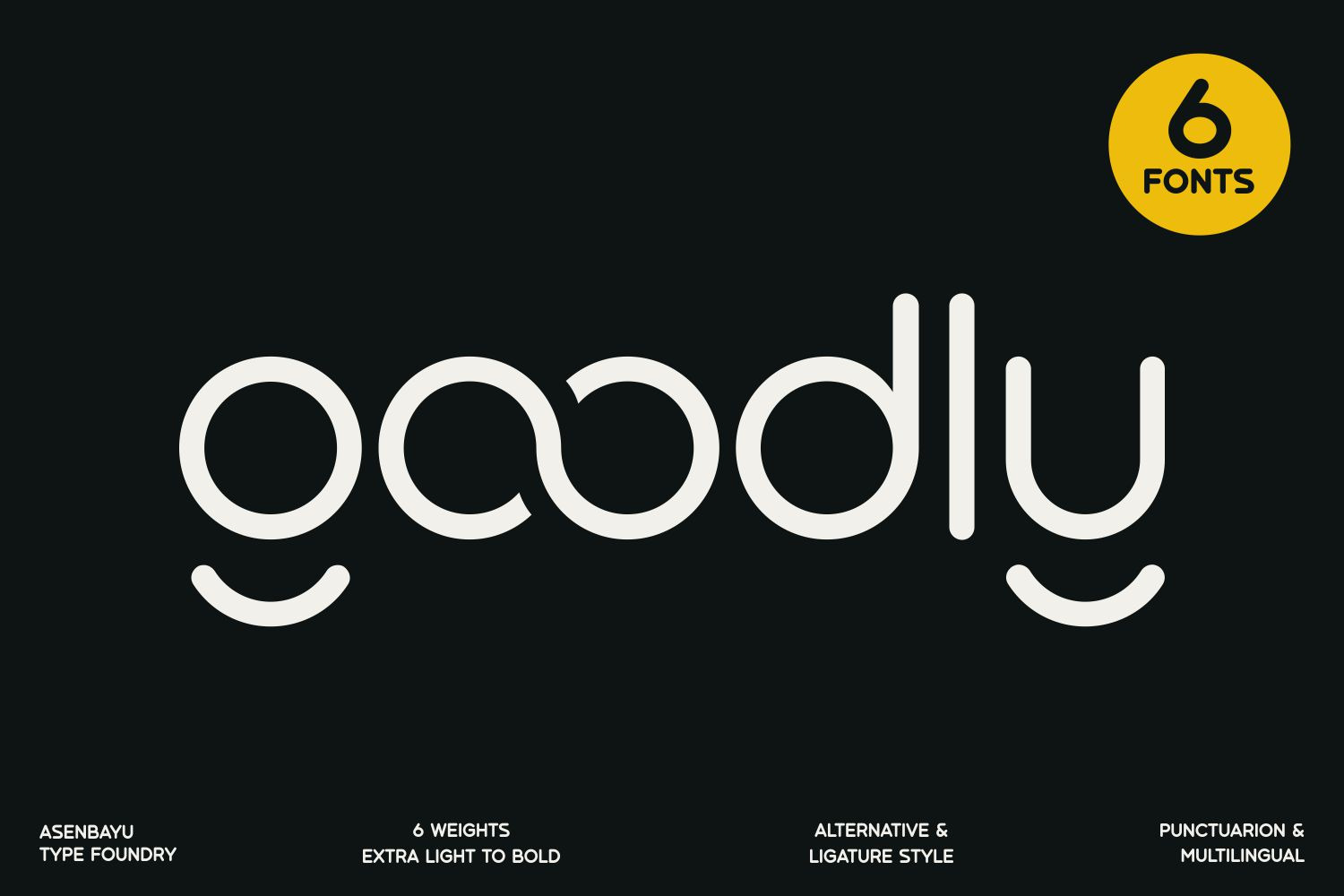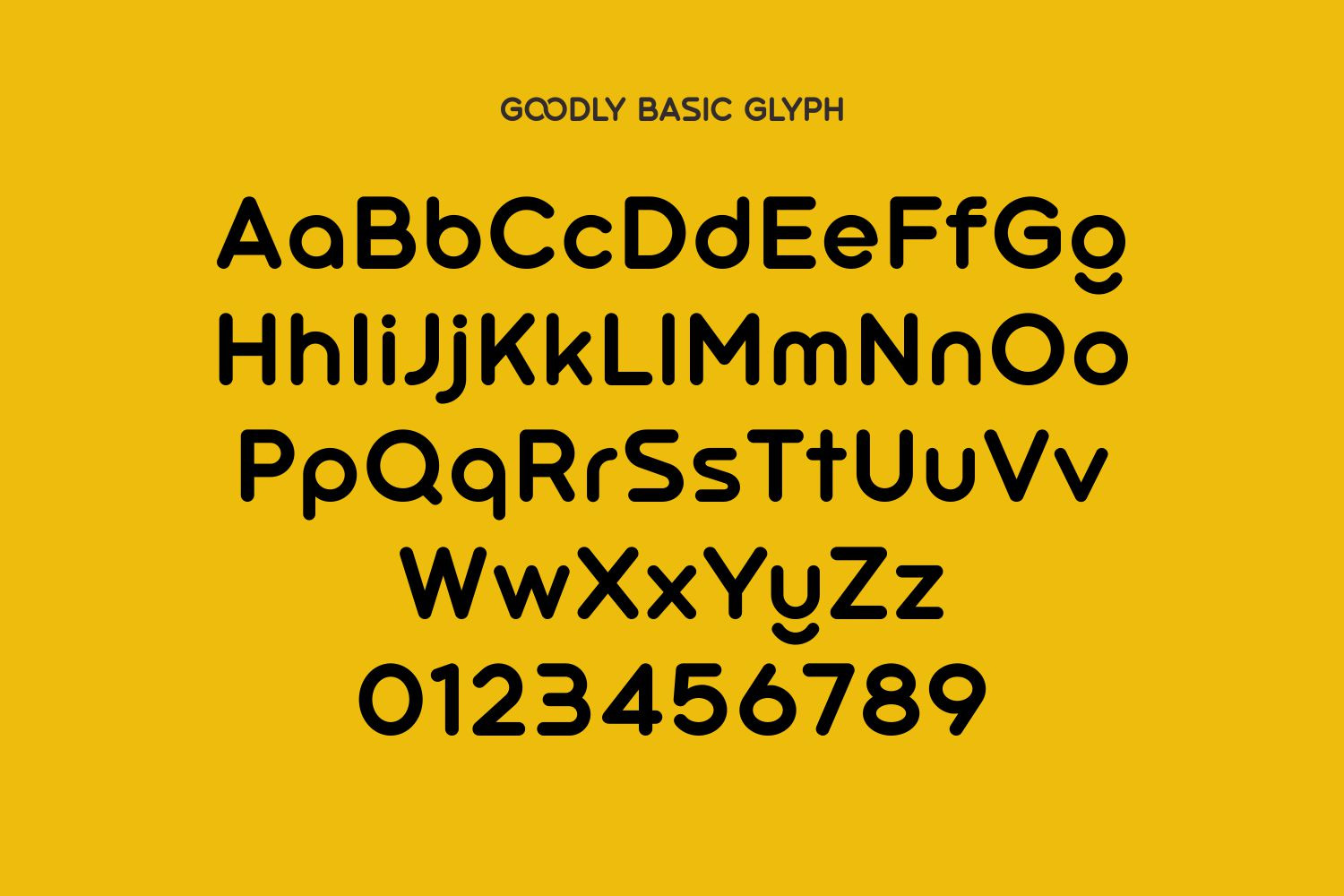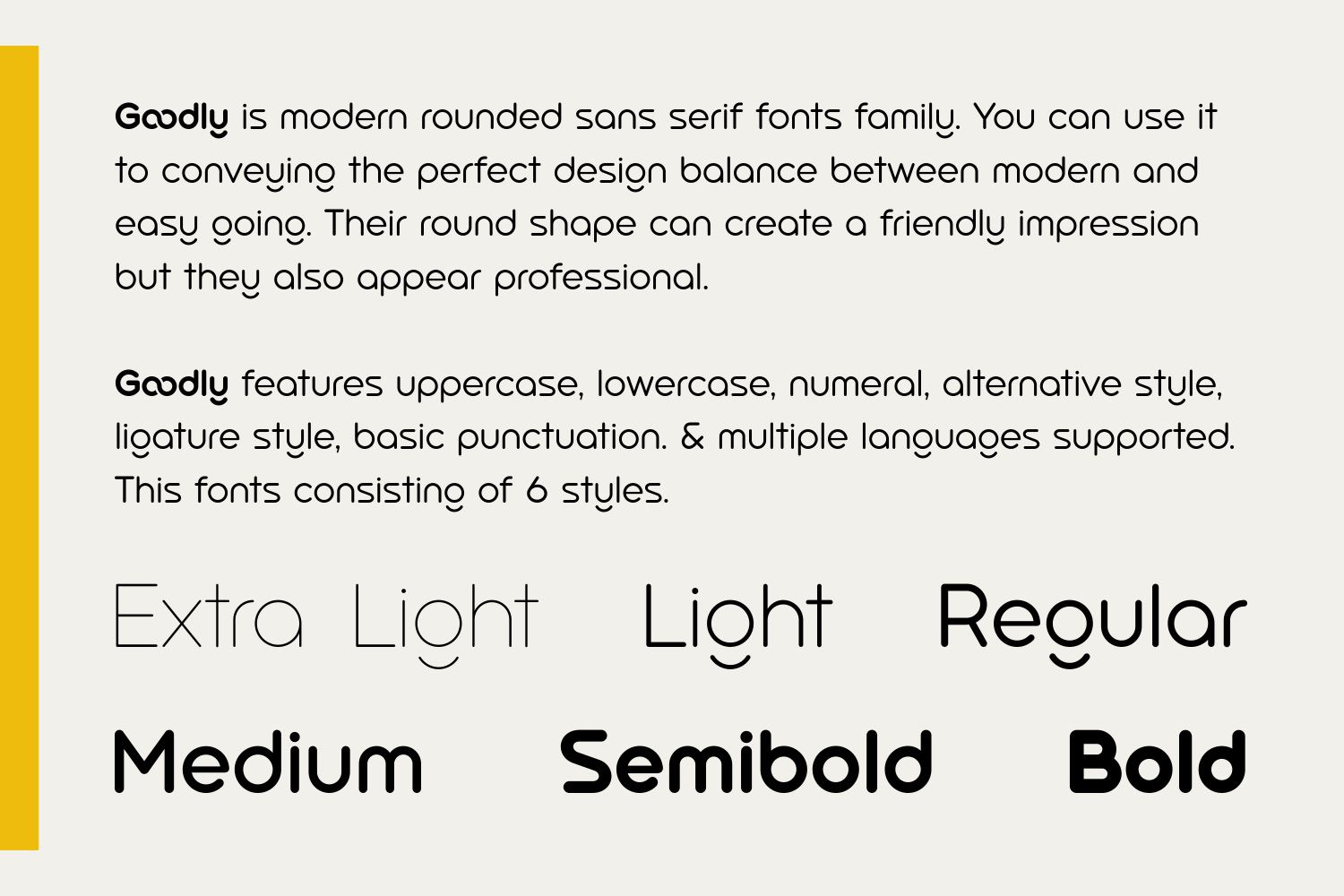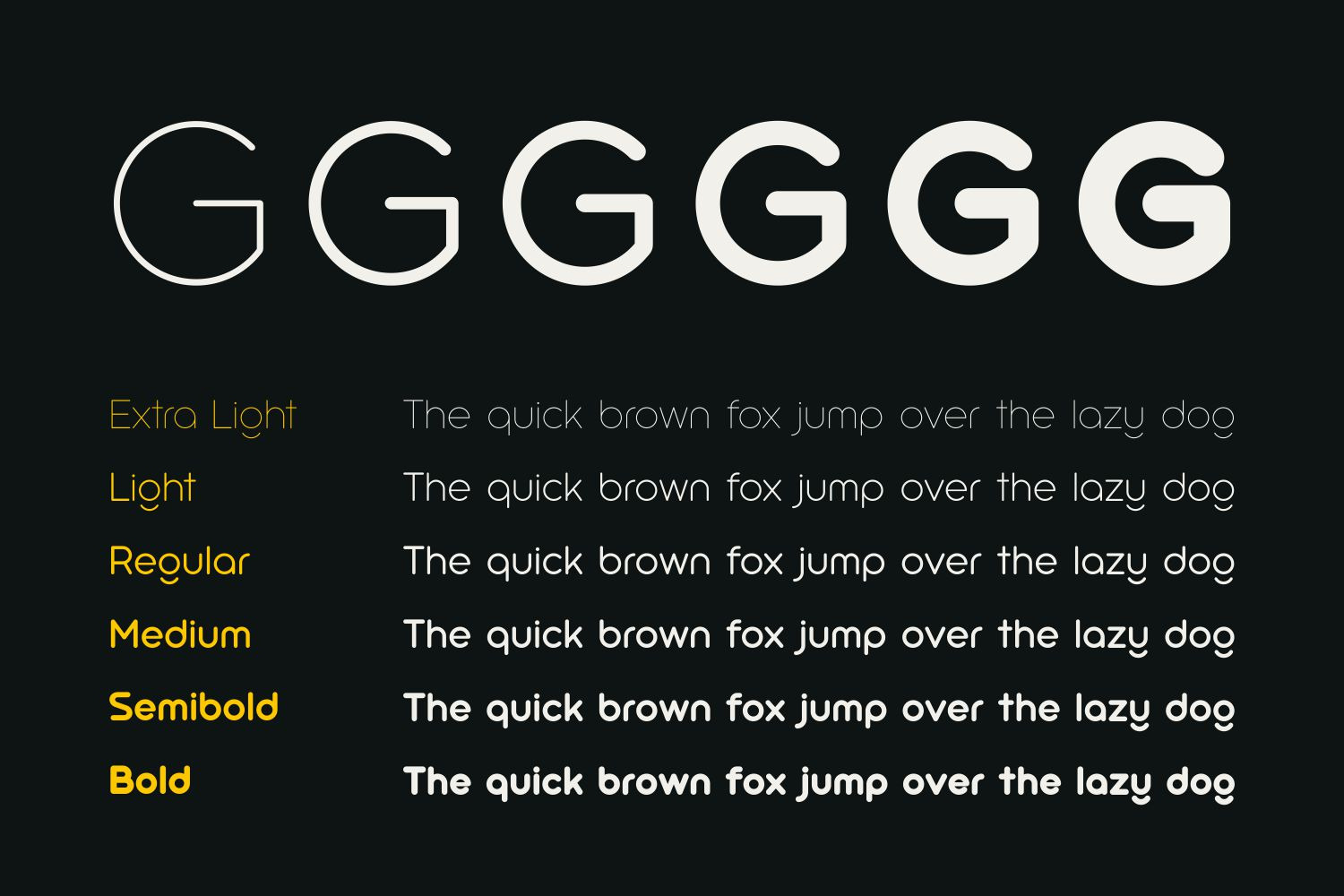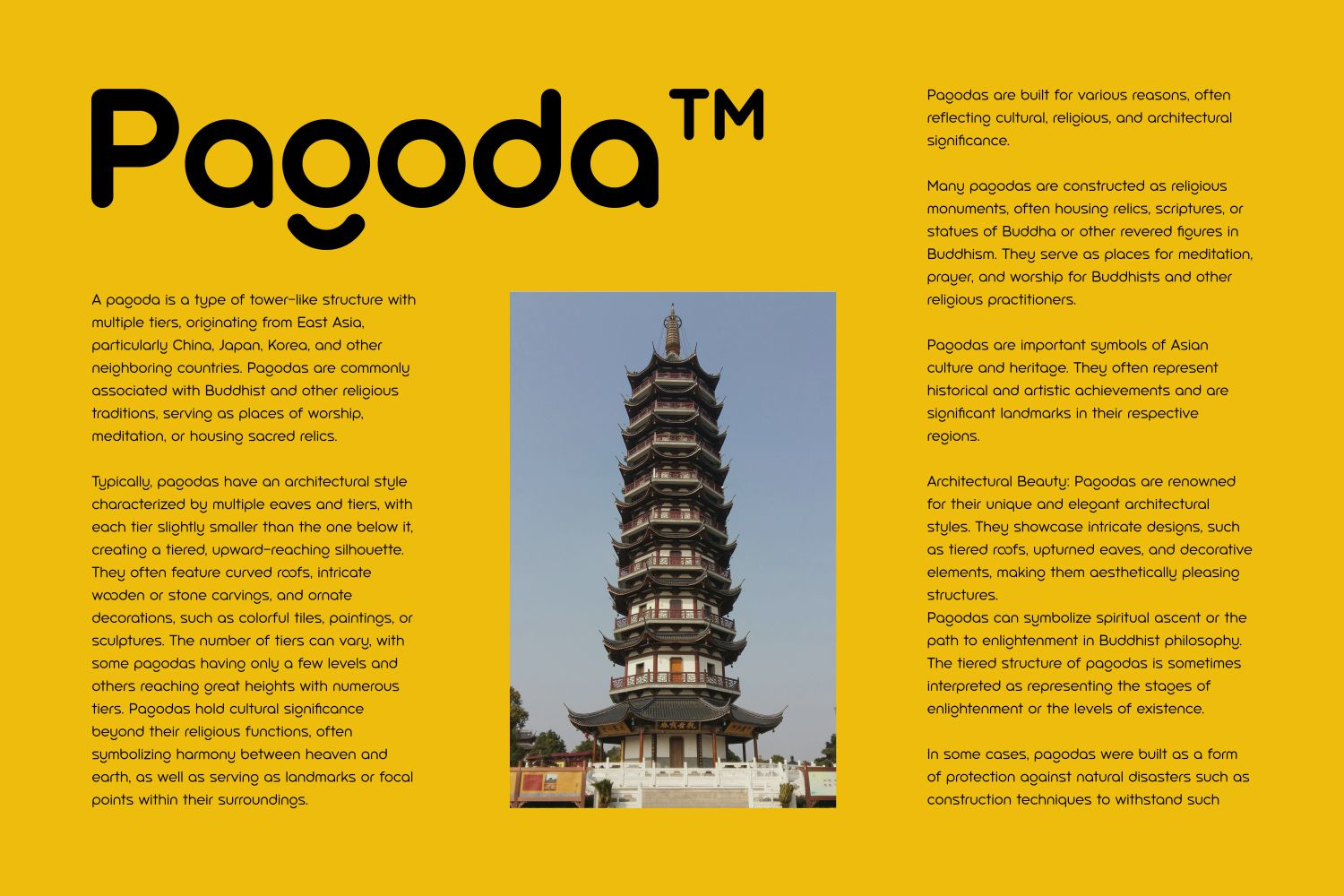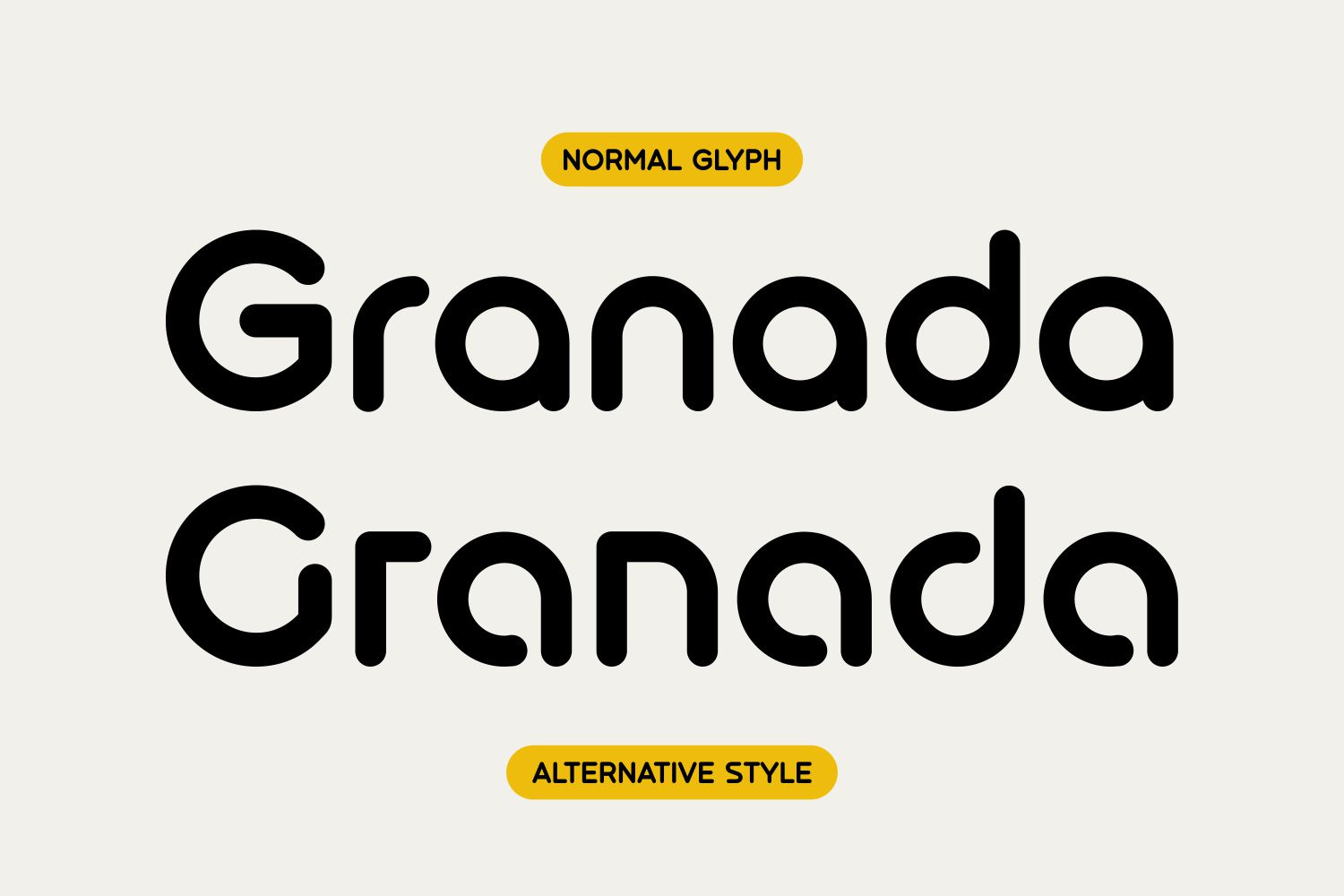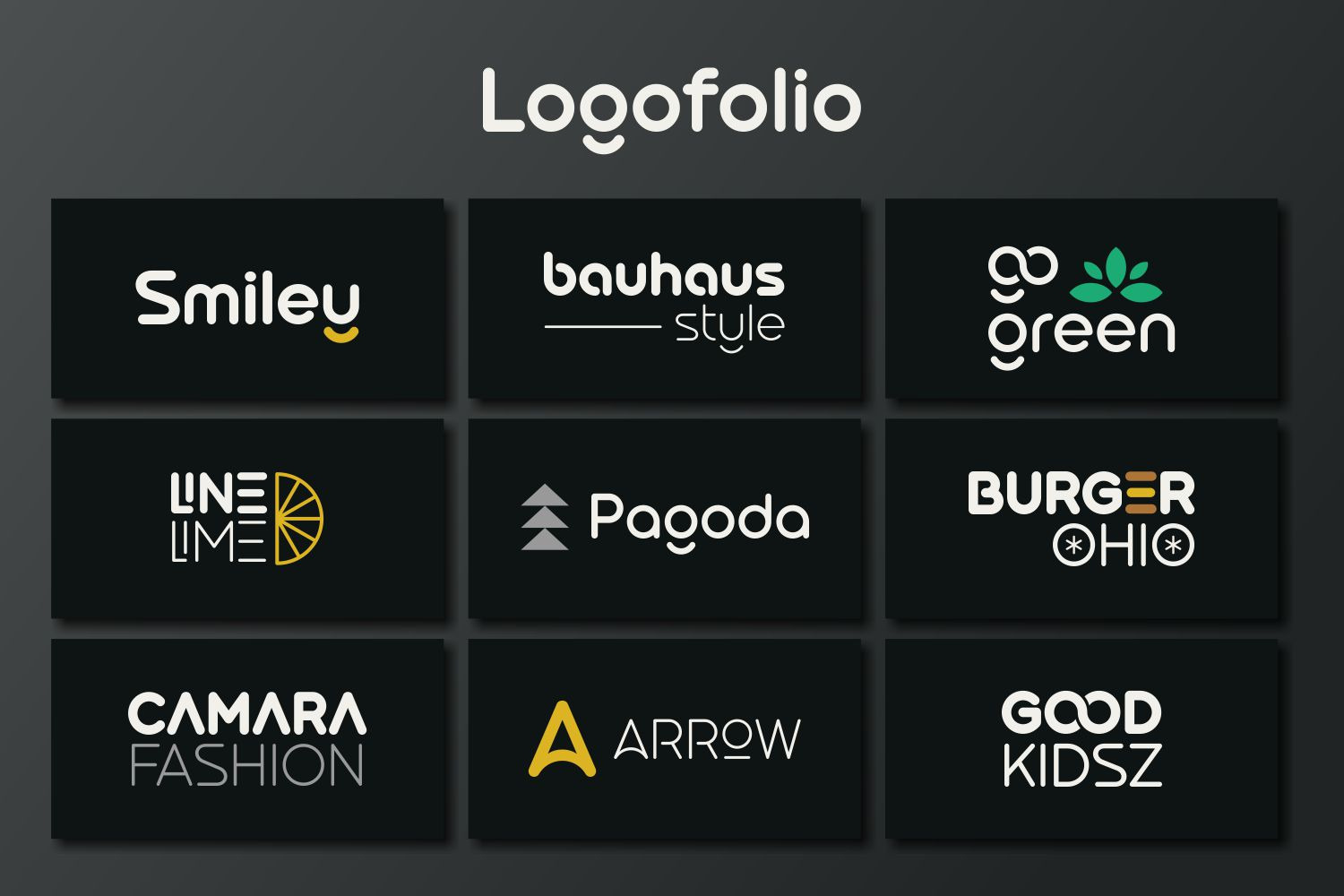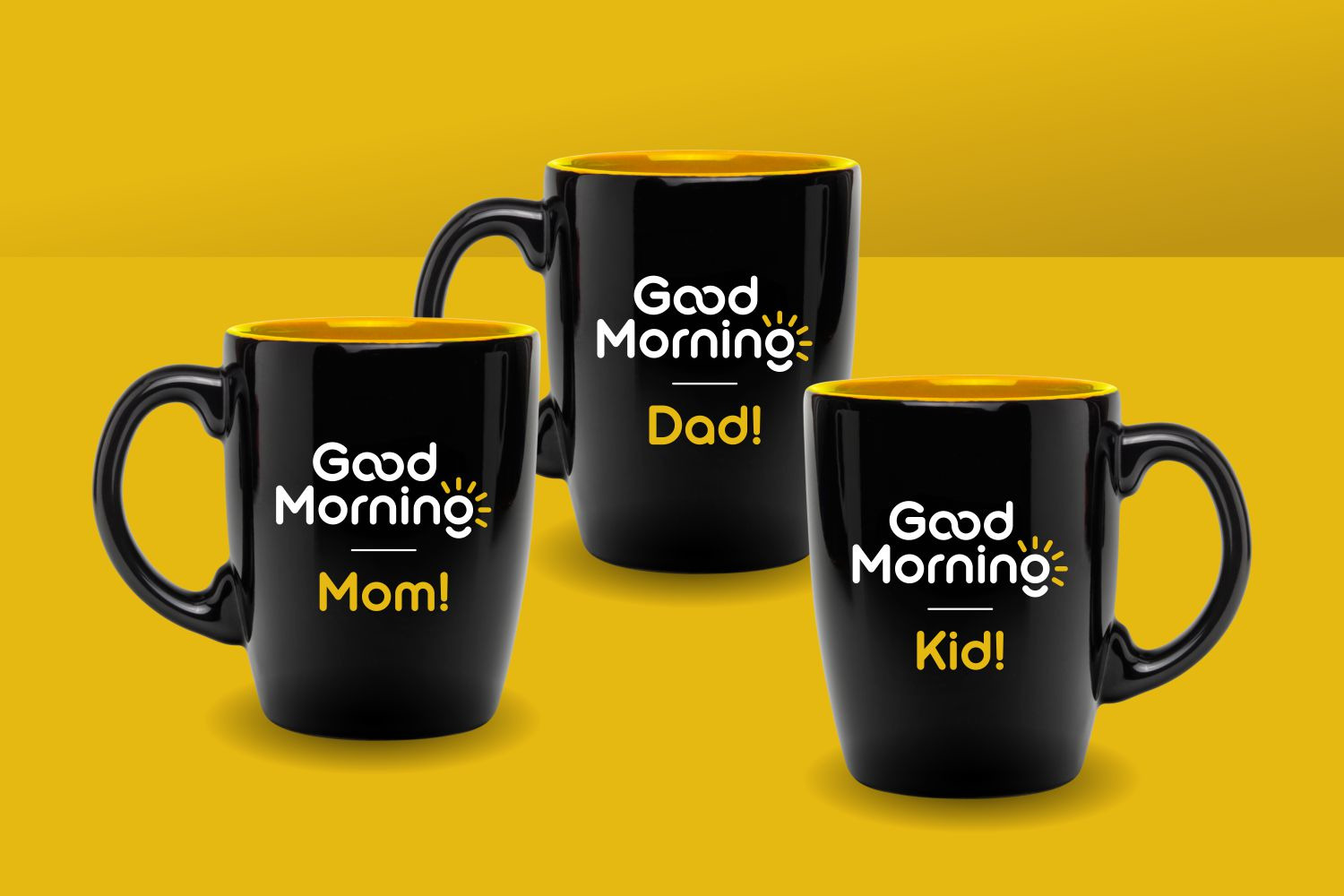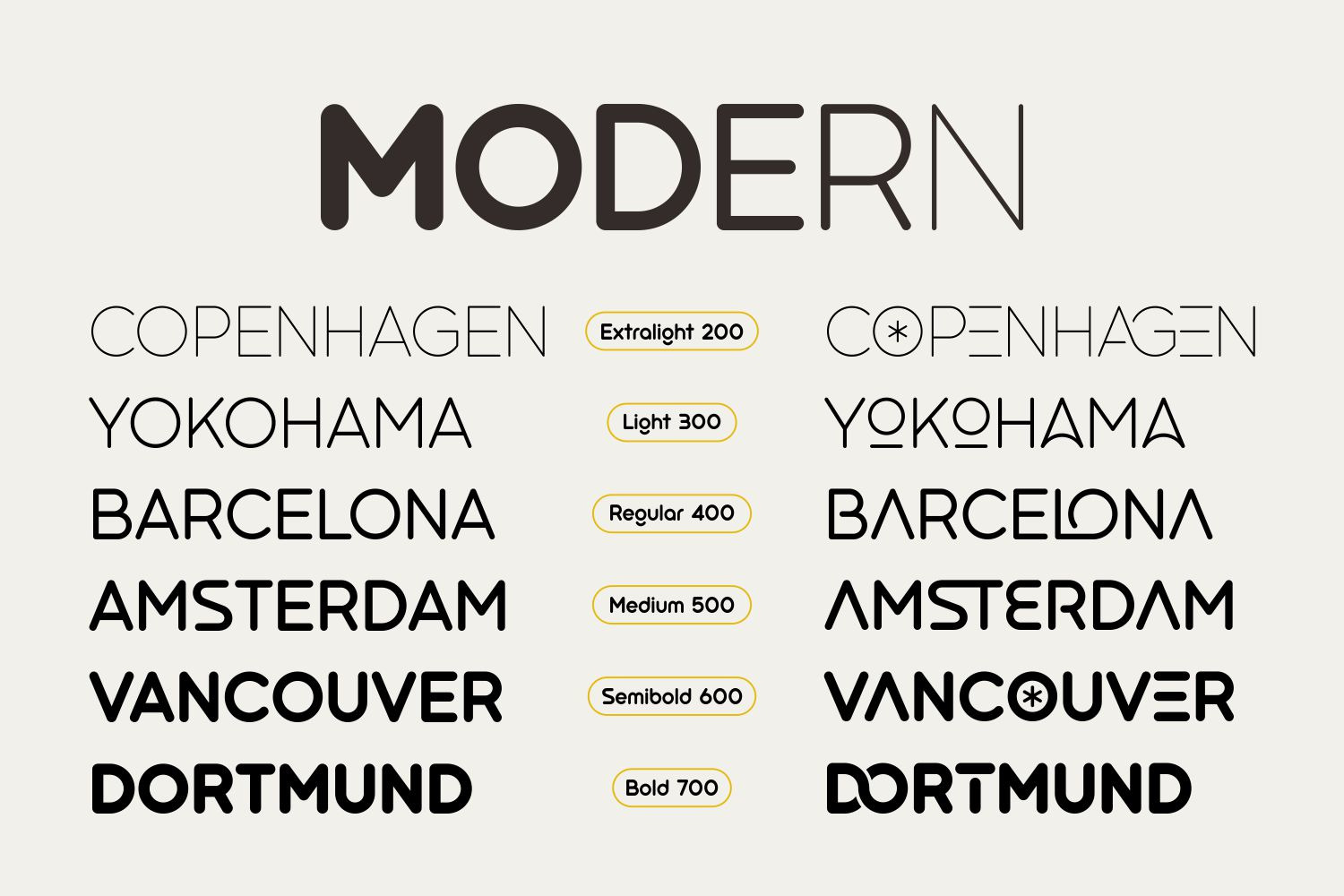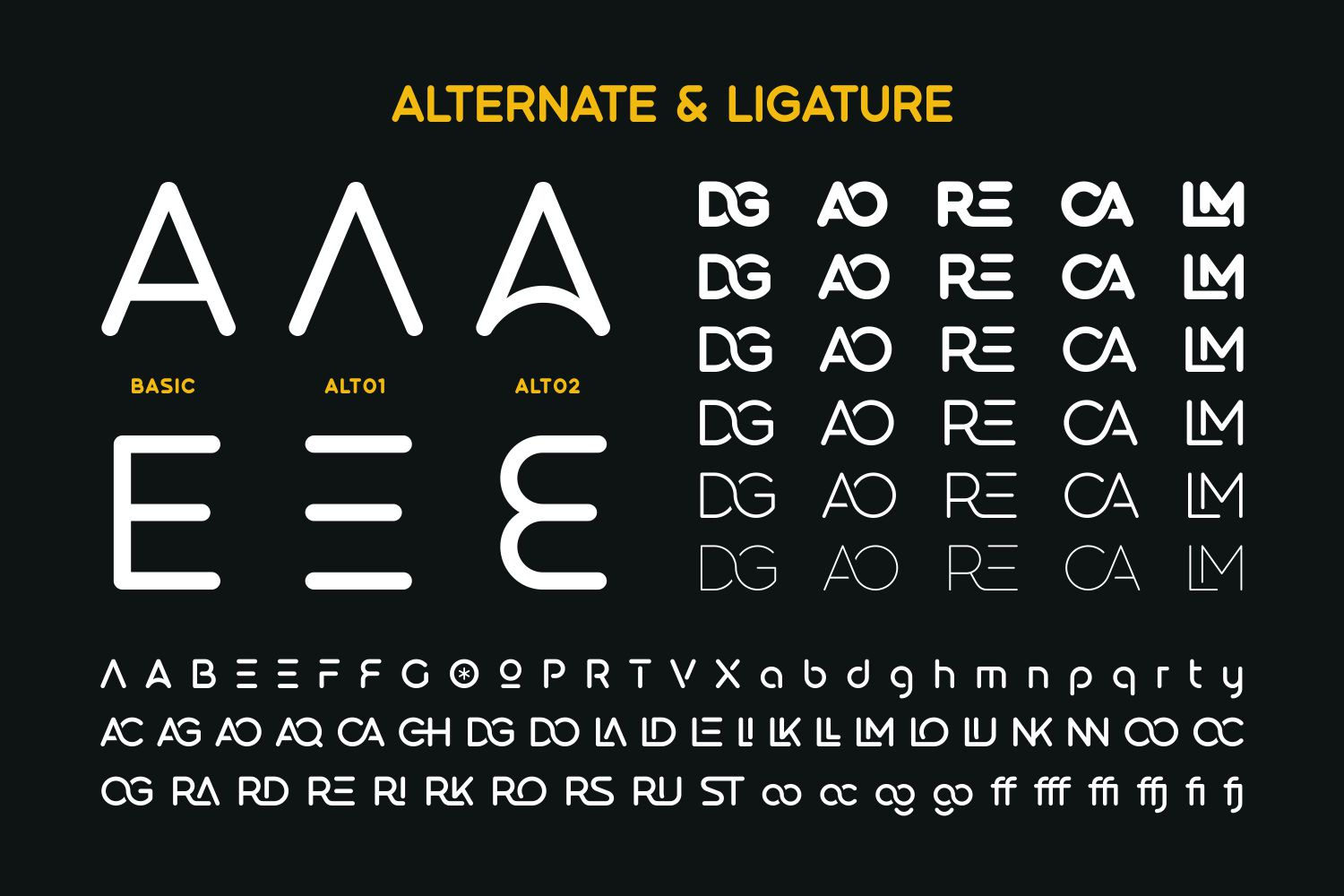
Goodly - Geometric Rounded Fonts Family
Goodly is modern rounded sans serif fonts family consisting of 6 weight. You can use it to conveying the perfect design balance between modern and easy going. Their round shape can create a friendly impression but they also appear professional. This font is suitable for trendy packaging label designs, unique desired logos and branding, poster designs, fashion and many more.
Goodly font features:
* 6 Weight
* Standard glyph
* Stylistic alternates & ligatures
* Symbol & punctuation
* Multiple languages supported.